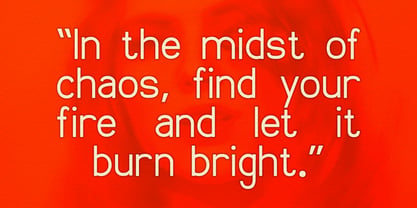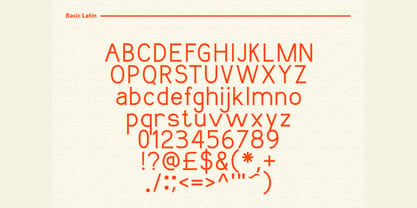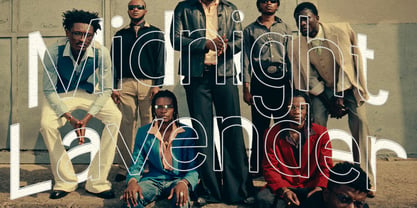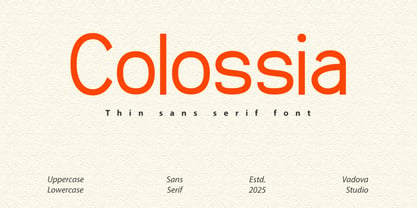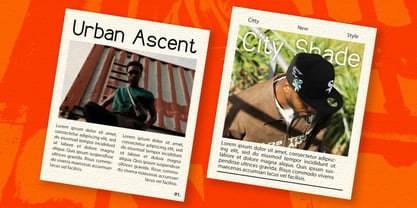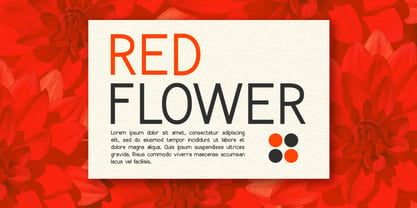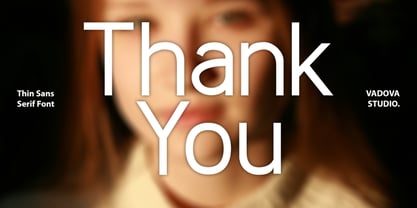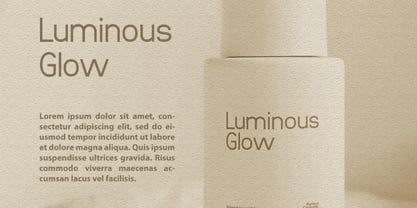
Colossia
von Vadova Std
Die Schriftfamilie Colossia entworfen und von Vadova Std veröffentlicht. Colossia enthält 1 Stile. Mehr über diese Familie
Colossia Thin Sans Serif Font is a clean and modern thin sans serif typeface designed with simplicity and clarity in mind. Its elegant line weight, generous spacing, and balanced structure make it a perfect choice for editorials, branding, lifestyle design, skincare packaging, portfolios, and minimalist layouts. Ideal for designs that seek a contemporary, airy feel with a touch of sophistication. Use Case editorial design, minimalist branding, lifestyle blogs, skincare packaging, social media templates, lookbooks, portfolios, typographic posters, magazine headlines, wellness branding, website headers, personal branding, product labels, business cards, startup identity, modern flyers, clean UI typography, aesthetic quotes, content creators, book covers.